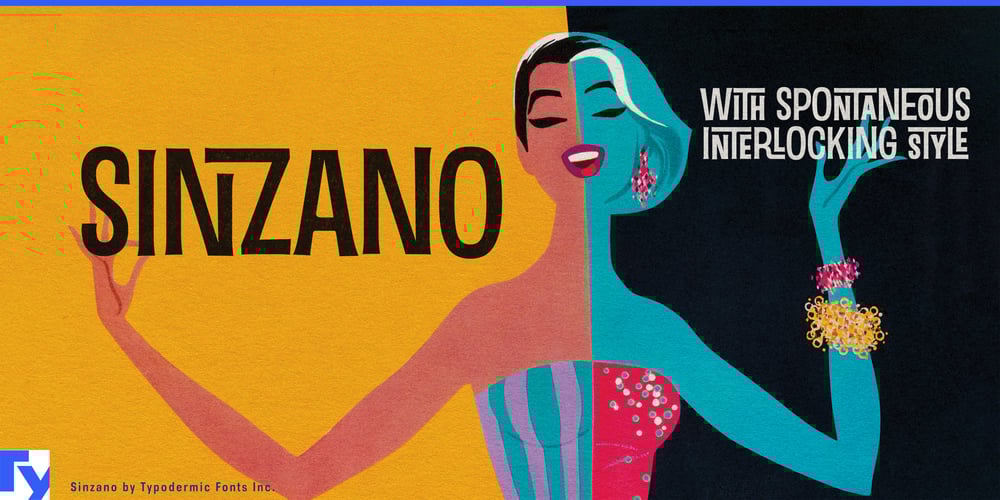
Sinzano Font Family was designed by Ray Larabie and published by Typodermic. Sinzano contains 3 styles and family package options. Listen up, cool cats! Sinzano is a typographic jam session that’ll make your designs sing. This font family is the epitome of cool, with letterforms that interlock and flow like notes in a smooth jazz solo.Sinzano Regular struts onto the scene with slender, flared lines that command attention. It’s the headliner of the typographic world, ready to make your message pop like a high note on a trumpet. Use it when you want your words to have the presence of a charismatic frontman, captivating audiences from the first glance. But the show doesn’t stop there. Sinzano Sans slides in with its straight, flat ends, offering a modern riff on the Sinzano vibe. It’s for those designs that need a touch of contemporary cool—think sleek album covers or cutting-edge event posters. This style keeps things fresh while maintaining that unmistakable Sinzano swagger.And for those laid-back moments? Enter Sinzano Display, the chill cousin of the family. Broader and rounder, with just a hint of that interlocking magic, it’s perfect for when you want to keep things groovy without stealing the spotlight. Use it for body text that flows as smooth as a mellow bassline. But what really sets Sinzano apart is its fascinating ligatures. These clever connections turn words into visual melodies, each letter flowing into the next like a well-rehearsed band. It’s typography that doesn’t just sit on the page—it performs.Sinzano’s linguistic versatility is equally impressive, grooving across a vast array of Latin-based European writing systems. From Afaan Oromo to Zuni, this typeface ensures your message maintains its cool no matter the language. It’s not just crossing borders—it’s starting a global typographic revolution. Choose Sinzano when you want your designs to do more than communicate—when you want them to resonate, to vibrate with style and personality. It’s not just a font; it’s an attitude, a statement, a way of saying “We’re not just here to be read, we’re here to be remembered.”So, if you’re ready to give your typography some serious soul, let Sinzano take the stage. Whether you’re designing for print, screen, or anything in between, this typeface family is ready to jam. With Sinzano, your words won’t just speak—they’ll sing, they’ll swing, they’ll make your audience want to get up and dance.